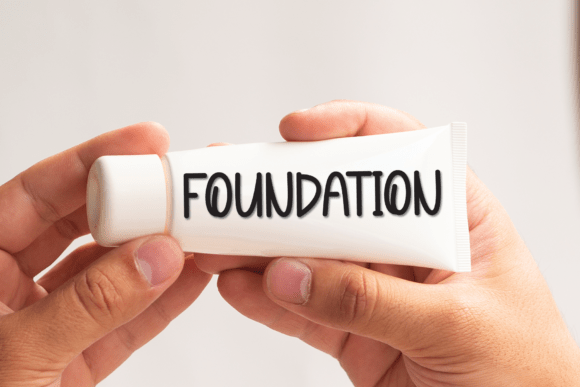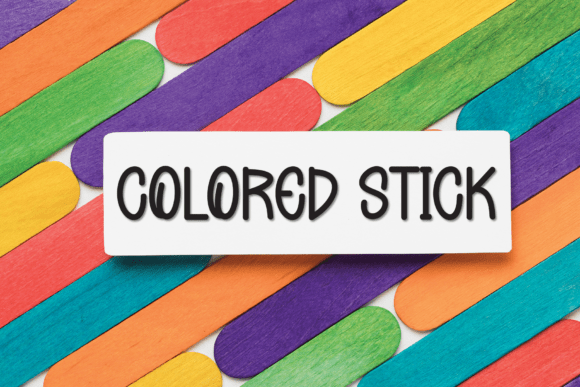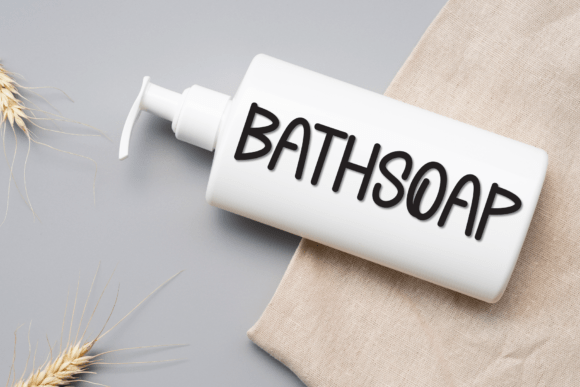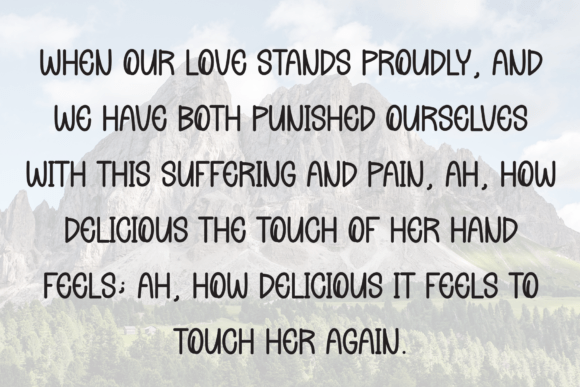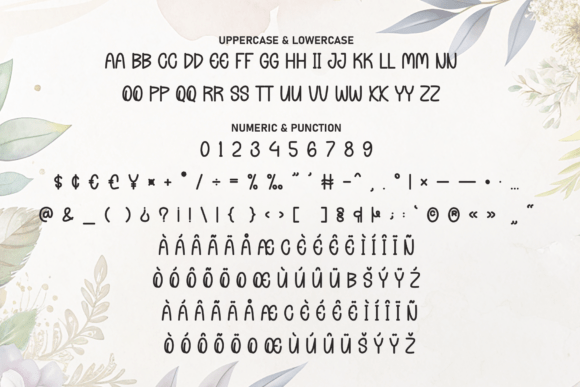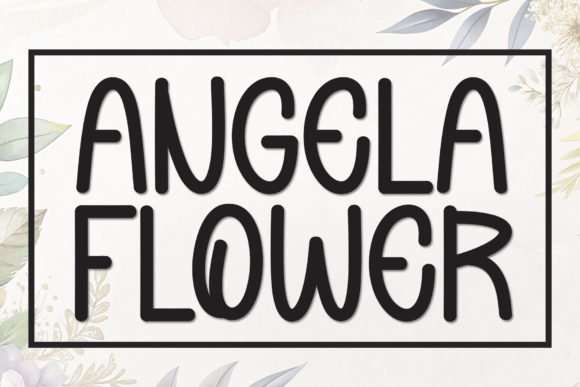
Discover the Delightful Angela Flower Font: Elevate Your Designs with a Breezy, Laid-Back Vibe
Are you on the hunt for a font that embodies the carefree spirit of summer? Look no further than the Angela Flower font, a charming and casual display typeface that’s perfect for injecting a dose of fun and relaxation into your designs. With its clean lines, effortless charm, and playful personality, this delightful font is sure to become your go-to for summer posters, event flyers, and lively branding projects.
What Makes Angela Flower Font So Special?
Angela Flower font is a neat and casual display font that radiates a breezy, laid-back feel, making it an excellent choice for designers and crafters looking to add a touch of whimsy to their work. Its clean lines and easygoing vibe evoke the feeling of a warm summer day, perfect for creating eye-catching designs that capture the essence of the season.
Perfect for Summer Posters and Event Flyers
Summer is here, and with it comes a slew of outdoor events, festivals, and activities that demand attention-grabbing posters and flyers. Angela Flower font is tailor-made for these projects, providing a cheerful and upbeat tone that’s sure to draw in crowds. Whether you’re promoting a music festival, a beachside concert, or a summer sale, this font will help you create designs that are as fun as they are effective.
Playful Branding and Packaging
Angela Flower font is not just limited to posters and flyers; it’s also an excellent choice for playful branding and packaging projects. If you’re launching a new product or service that embodies a carefree, summer vibe, this font can help you establish a consistent visual identity that’s both youthful and engaging. From ice cream shops to surf schools, Angela Flower font is perfect for businesses that want to convey a sense of fun and approachability.
Key Features of Angela Flower Font
- Clean Lines: Angela Flower font boasts clean, crisp lines that give it a modern and fresh feel.
- Easygoing Vibe: This font exudes a laid-back, effortless charm that’s perfect for summer designs.
- Playful Personality: Angela Flower font has a cheerful, upbeat tone that’s sure to bring a smile to your audience’s faces.
- Versatility: This font is suitable for a wide range of design projects, from posters and flyers to branding and packaging.
Tips for Using Angela Flower Font
To get the most out of Angela Flower font, here are a few tips to keep in mind:
- Use it as a Display Font: Angela Flower font is designed to make a statement, so use it as a display font to grab attention and draw in your audience.
- Pair it with Contrasting Fonts: Combine Angela Flower font with contrasting fonts to create visual interest and add depth to your designs.
- Experiment with Colors: This font looks great in a variety of colors, so don’t be afraid to experiment and find the perfect hue to match your brand or design.
Angela Flower font is a delightful and charming typeface that’s perfect for designers and crafters looking to add a touch of summer fun to their designs. With its clean lines, easygoing vibe, and playful personality, this font is sure to become a staple in your design toolkit. Whether you’re creating summer posters, event flyers, or playful branding projects, Angela Flower font is the perfect choice for injecting a dose of fun and relaxation into your work.